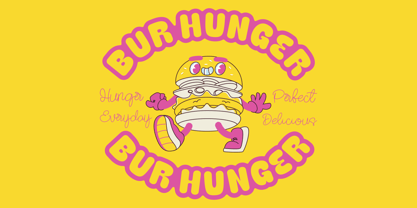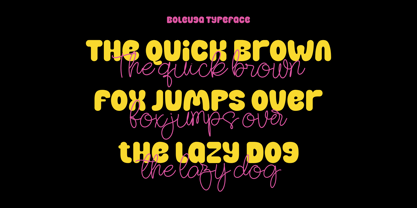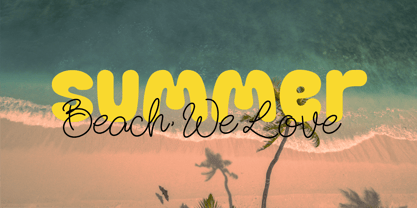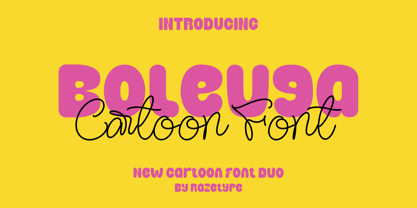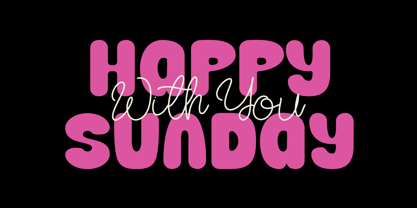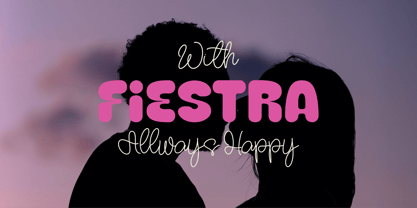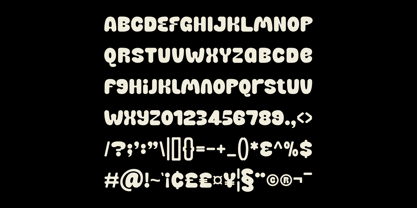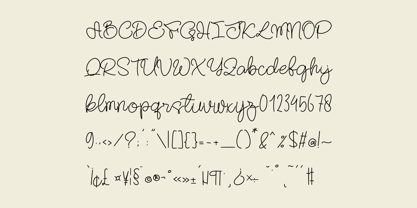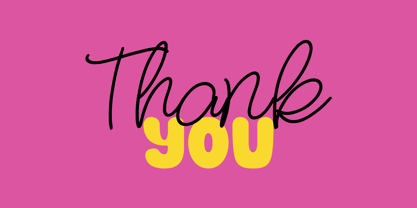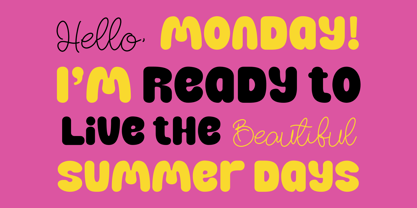
Boleuga
by Razetype
The Boleuga Font Family was designed by Ahmad Faizal and published by Razetype. Boleuga contains 2 styles and family package options. More about this family
Introducing Boleuga Font Duo is a playful and dynamic typeface that combines bold, bubbly letterforms with a whimsical handwritten script, creating a versatile pairing suitable for a wide range of creative projects. The primary style features rounded, chunky characters with a soft, cartoon-like appeal that radiates friendliness and fun. This bold design makes it highly legible and impactful, perfect for titles, posters, product packaging, children’s content, or branding that requires a cheerful personality. The secondary handwritten script offers a fluid, casual elegance with delicate strokes, balancing the boldness of the display style with a sense of charm and creativity. Together, the duo achieves a harmonious contrast, allowing designers to mix and match both fonts for playful typography compositions. Boleuga embodies energy, joy, and approachability, making it an excellent choice for projects that aim to capture a youthful, lighthearted, and expressive visual identity.
Designers: Ahmad Faizal
Current Foundry: Razetype